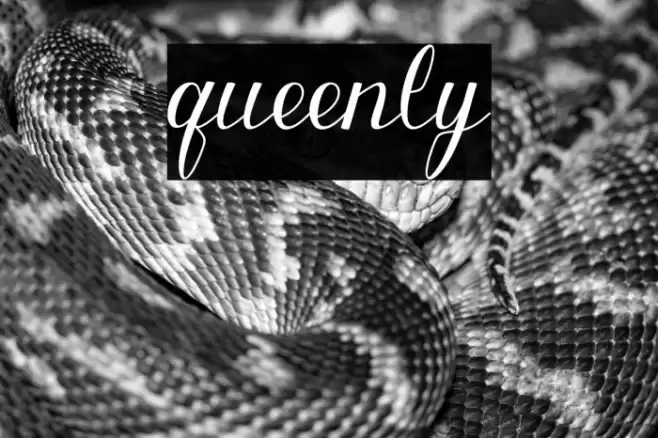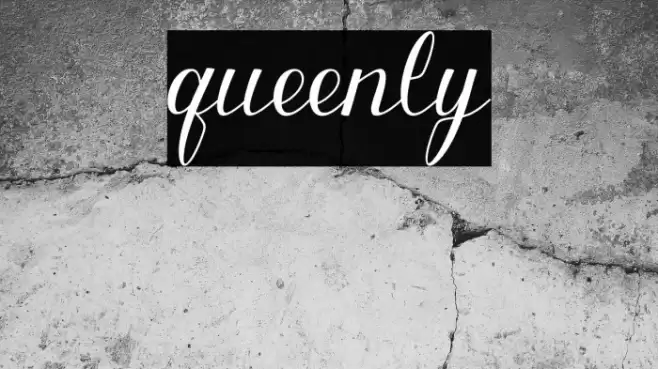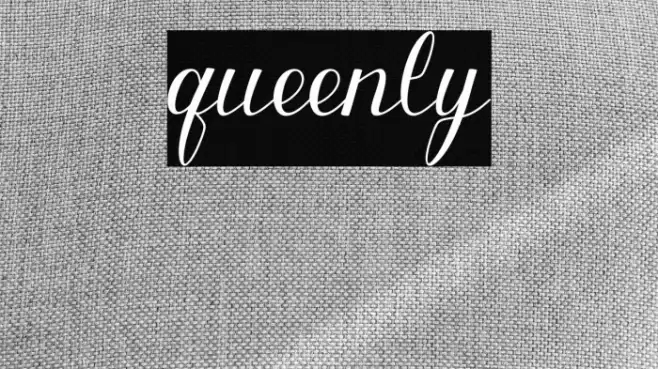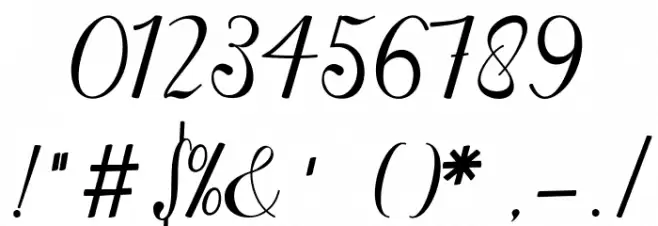
queenly Font
queenly Description
This elegant script font features a flowing, cursive style with high contrast between thick and thin strokes. The uppercase letters are ornate, with sweeping curves and loops that give a sense of sophistication and grace. The lowercase letters maintain a consistent style, with smooth connections between characters, enhancing readability while preserving the decorative nature. Numbers and punctuation follow the same stylistic cues, ensuring a cohesive look across all text elements. This font is ideal for projects that require a touch of elegance and refinement.
An elegant script font with high contrast and flowing, cursive style from Regular fonts.
- Font: queenly
- Proposed Projects: Wedding invitations, luxury branding, elegant packaging, greeting cards, and formal event programs.
- Overall Style: Elegant, Decorative
- Use Case: Logos, Invitations, Headlines